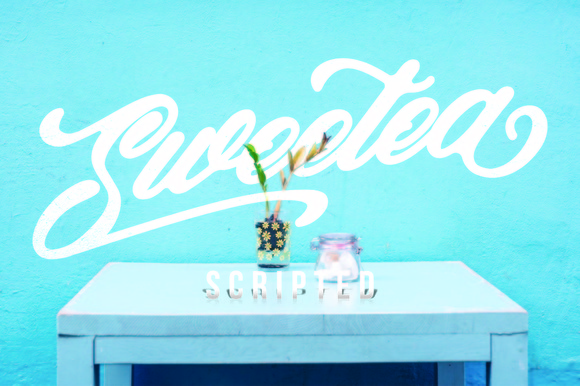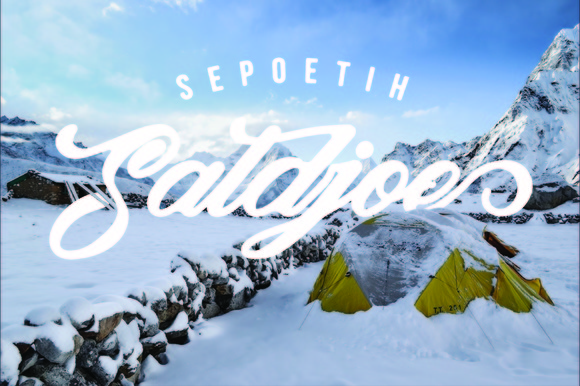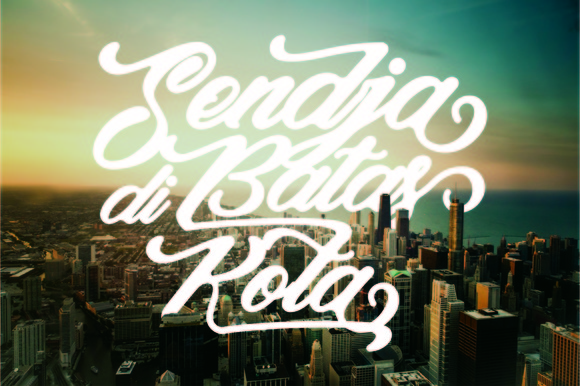
Sweetea Font
About Sweetea Font
Sweetea Scripted is a typeface inspired by the glass of hot sweet tea presented in the morning. Sweet, and full of inspiration.
Designers can use this font for romantic-themed design needs, affection, and love. Additionally, these fonts can also be used to create a headline magazine, storybook for both children and adults, and so forth.